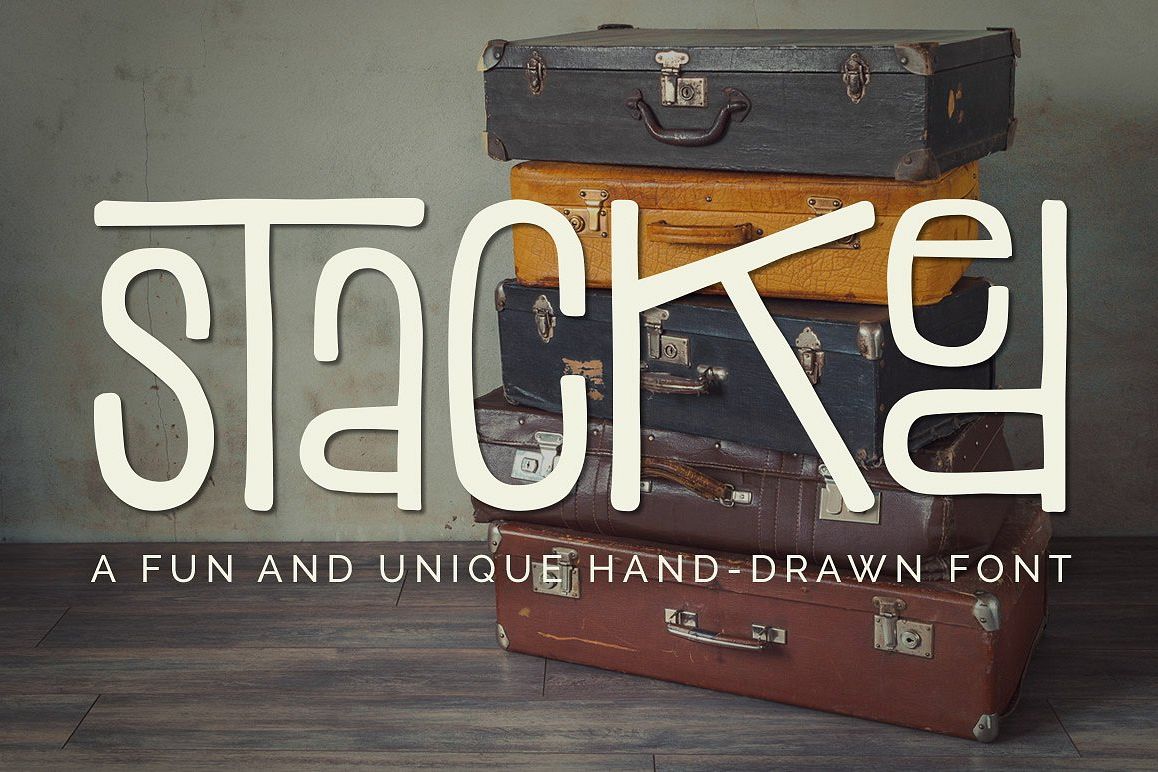
Stacked Font
2022 UPDATE: After 10 years, I decided to revisit my very first font. Cleaned it up a bit, made a few changes, added opentype features, and over 50 new ligatures! Original files are still included, in case you like that retro charm.
Stacked is a fun and unique font that comes with individual characters as well as 2-3 letters stacked together. You can mix and match until you find just the look you want. Works great for big, bold headers or typographic posters.